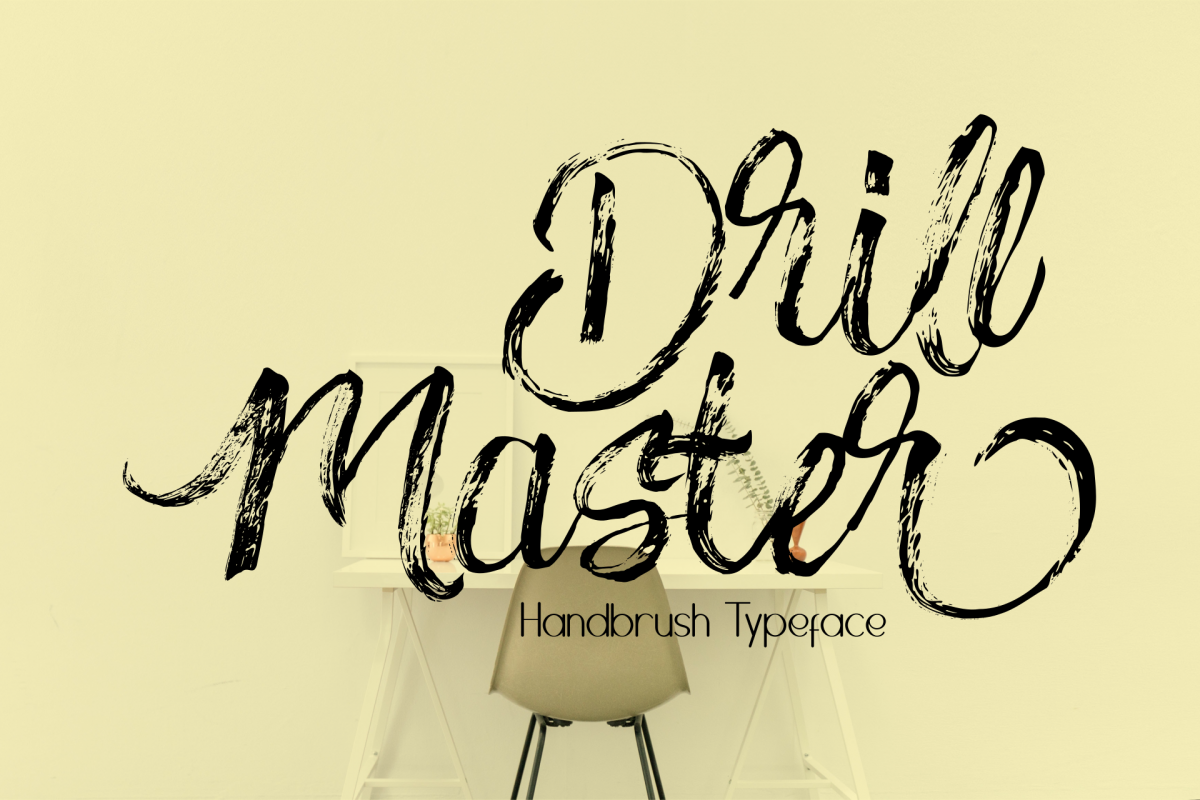
Drillmaster Handbrush Typeface
Drillmaster
Drillmaster was a pure authentic hand brush font. use it and your design will enormous beautiful and elegant.
consist of complete punctuation and also support multilingual.